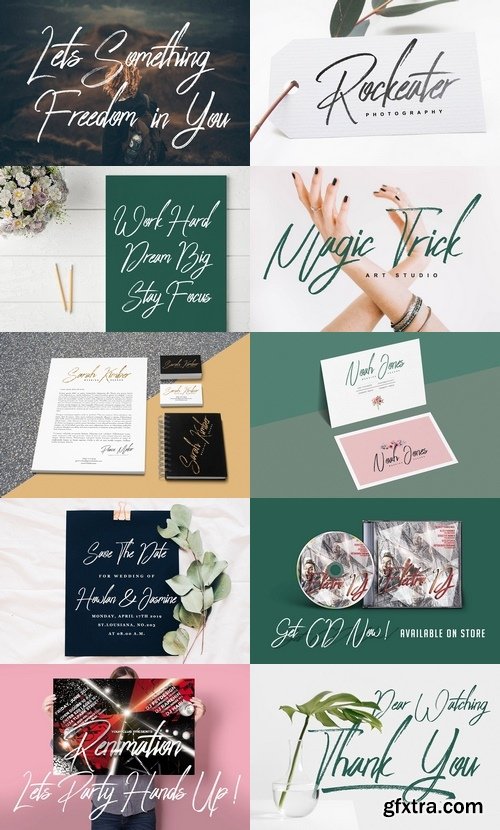
Peace Maker - Handletter Font
Peace Maker is Dry Brush Script Font with handletter style. Suitable for design, element design, wedding, event, t-shirt, logo, badges, sticker, and awesome work, etc...